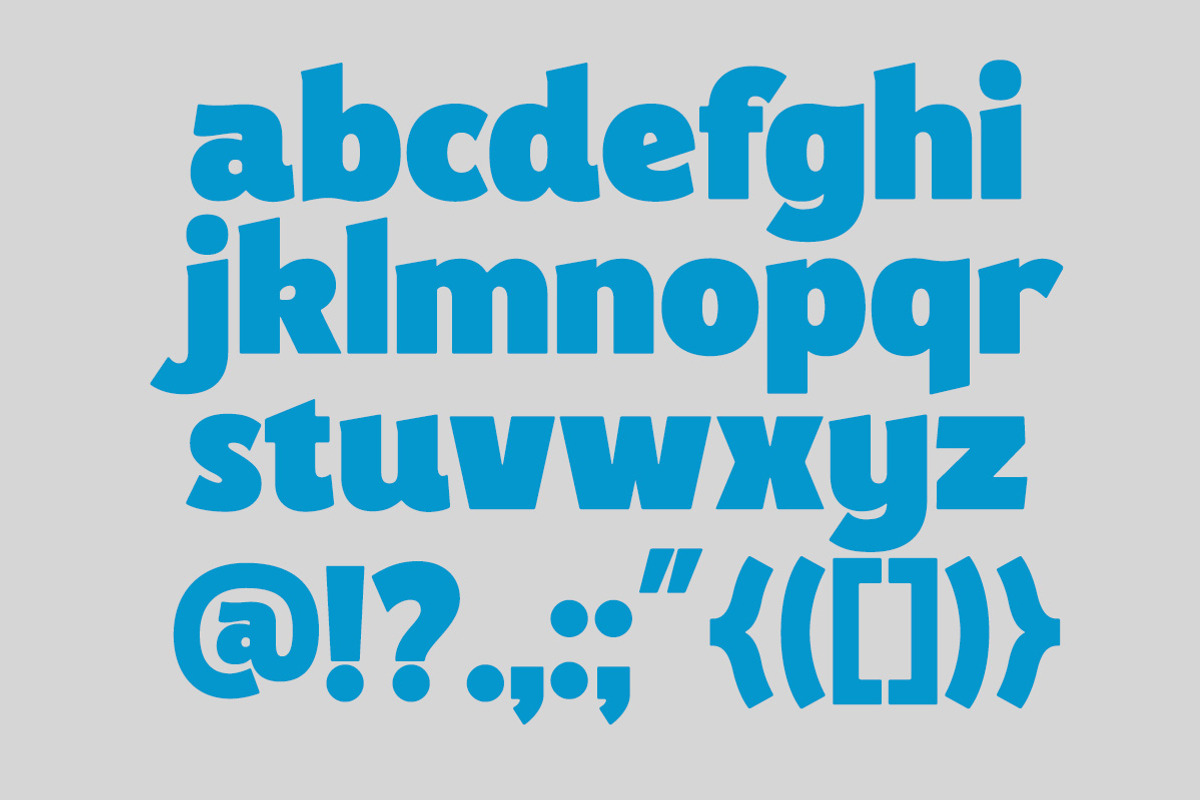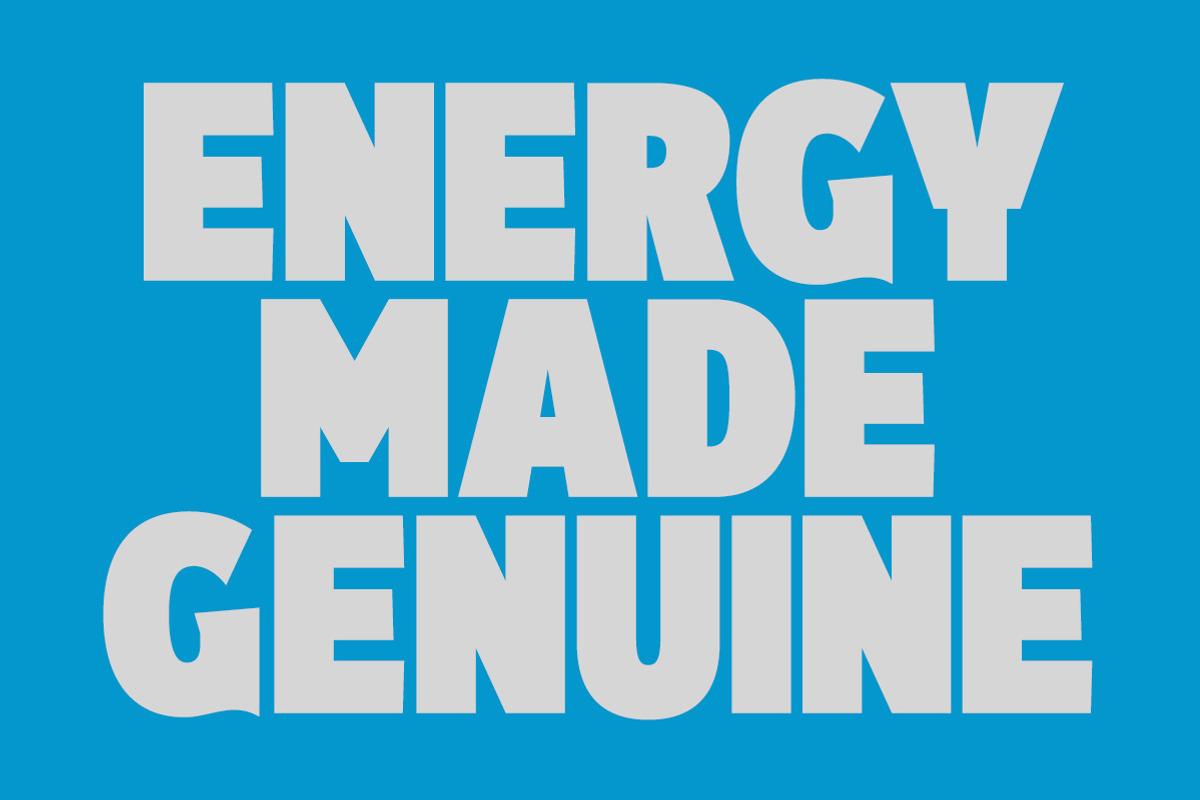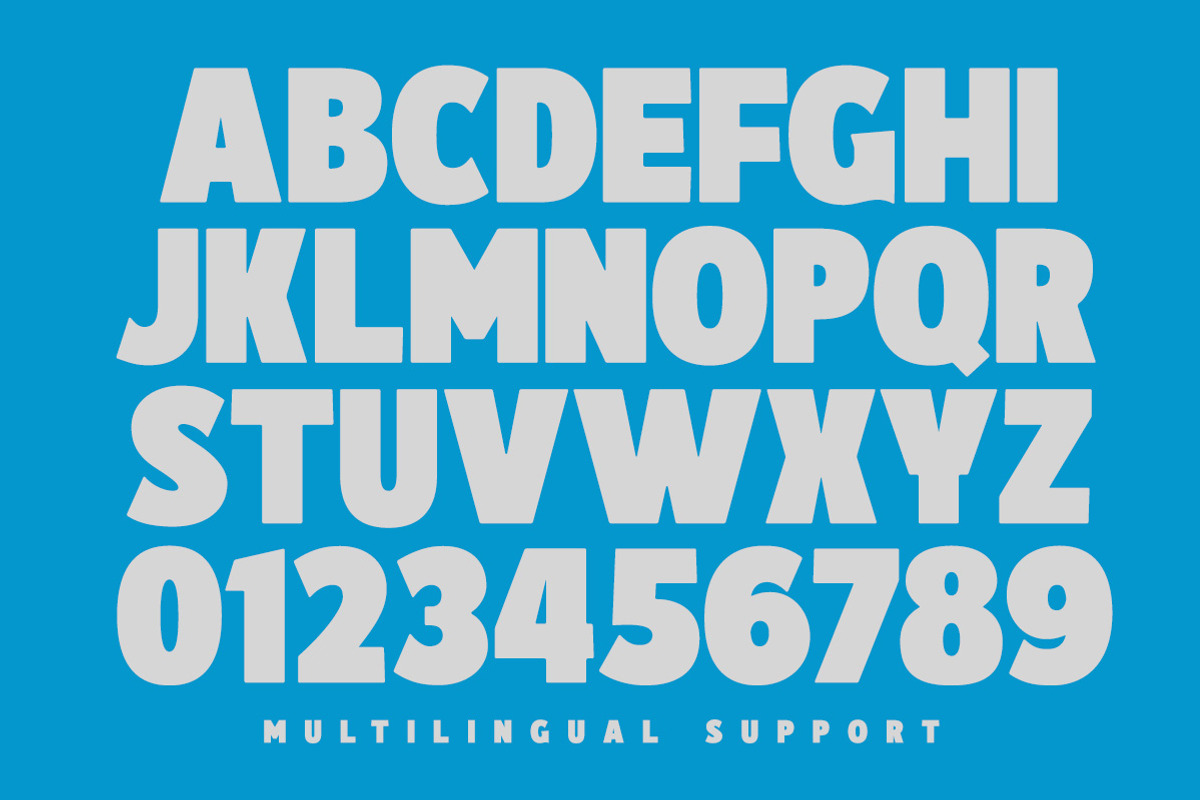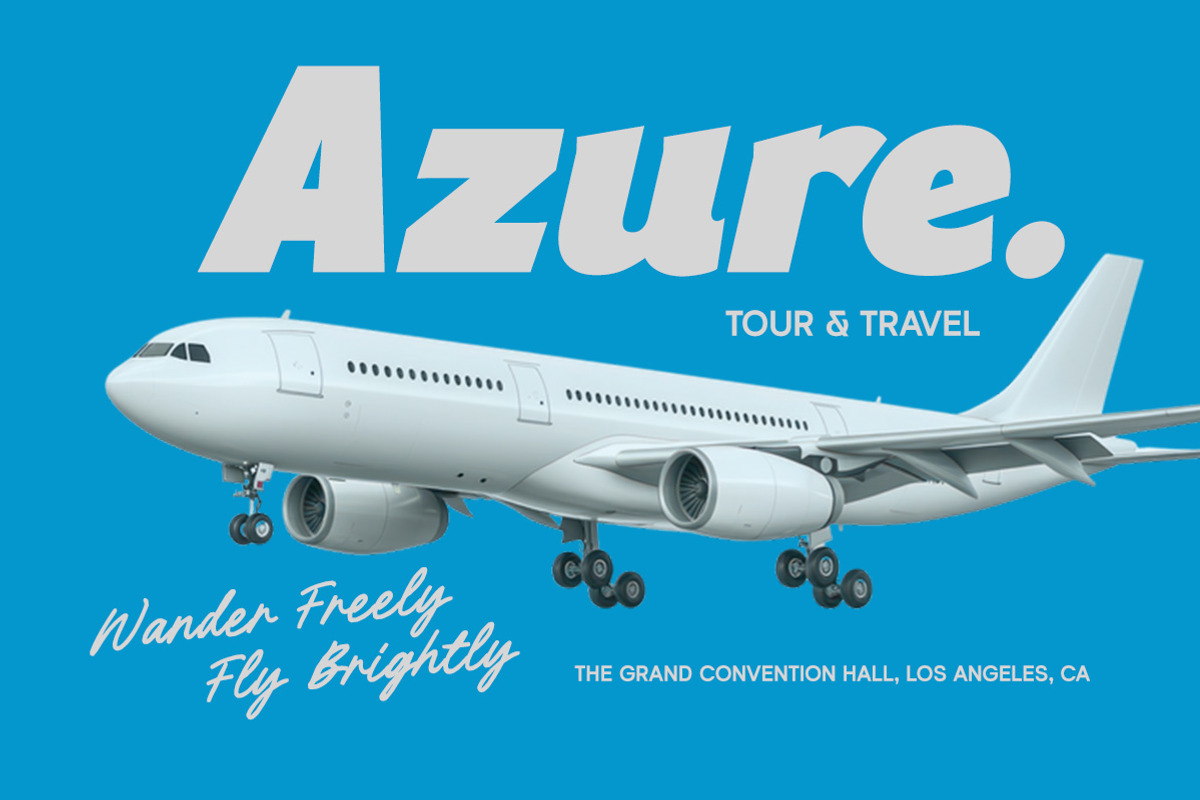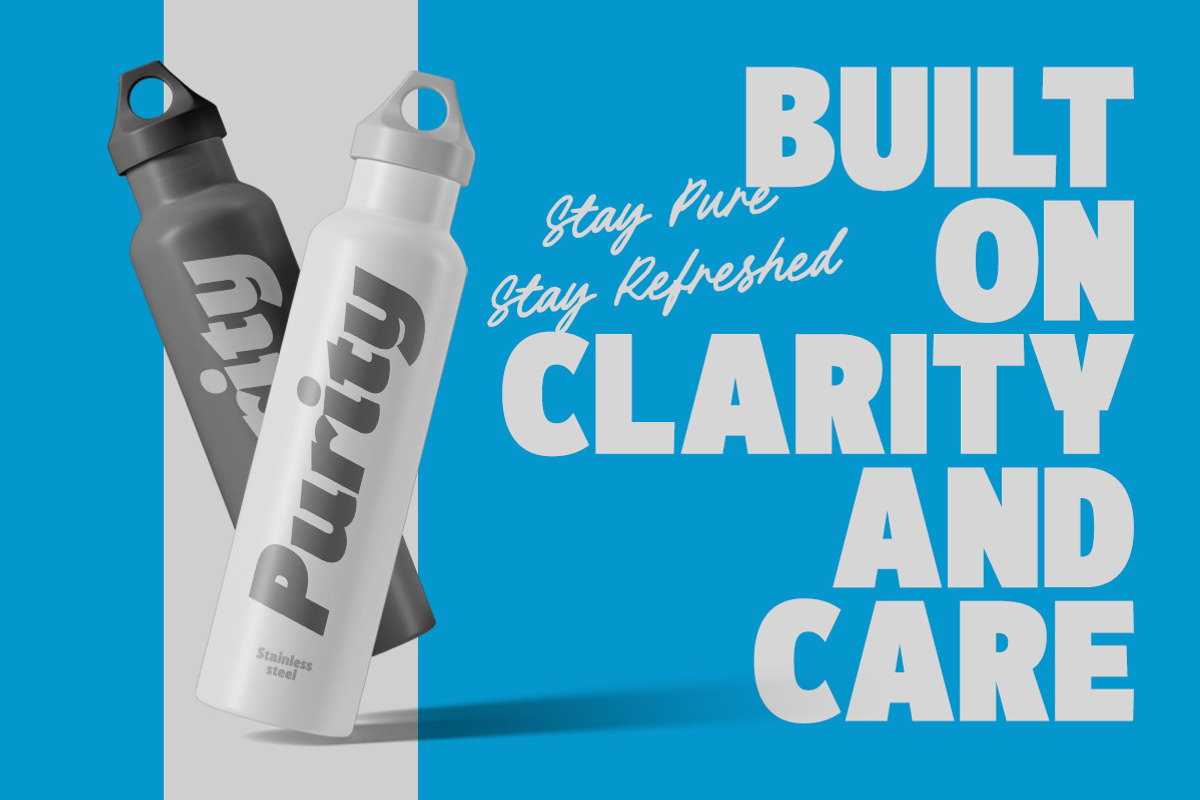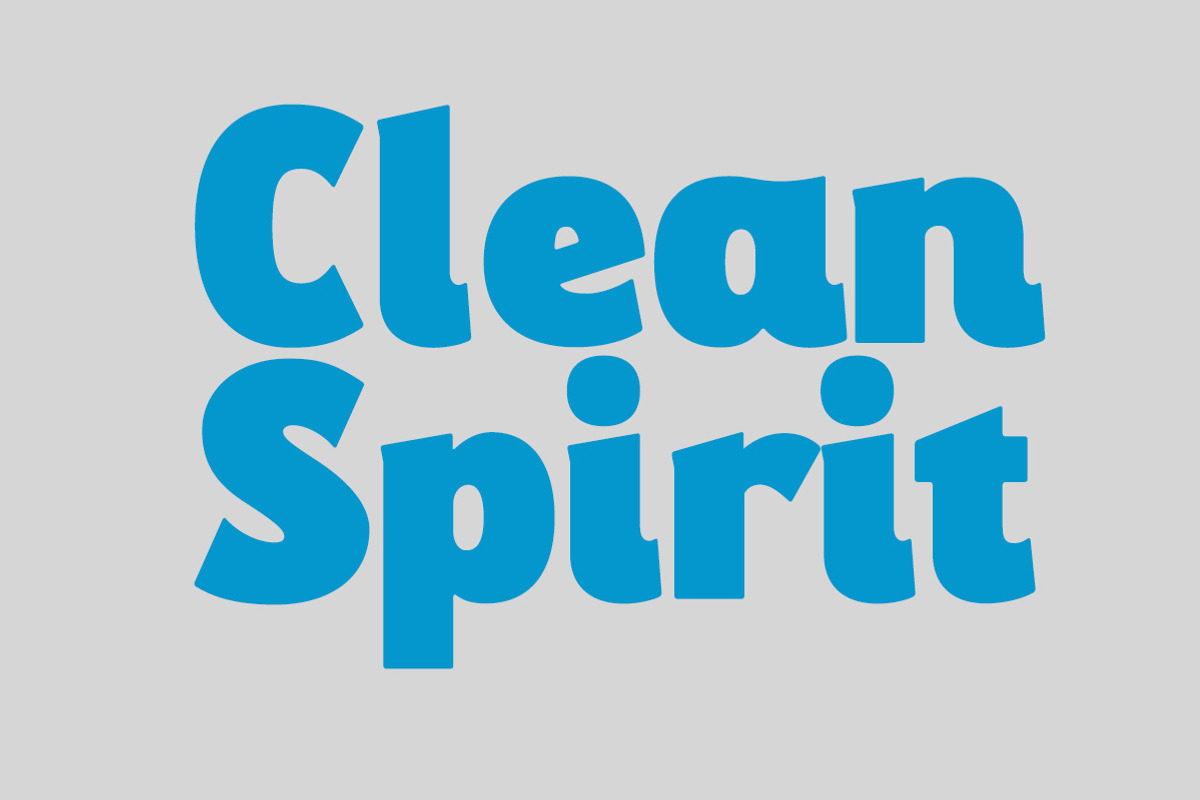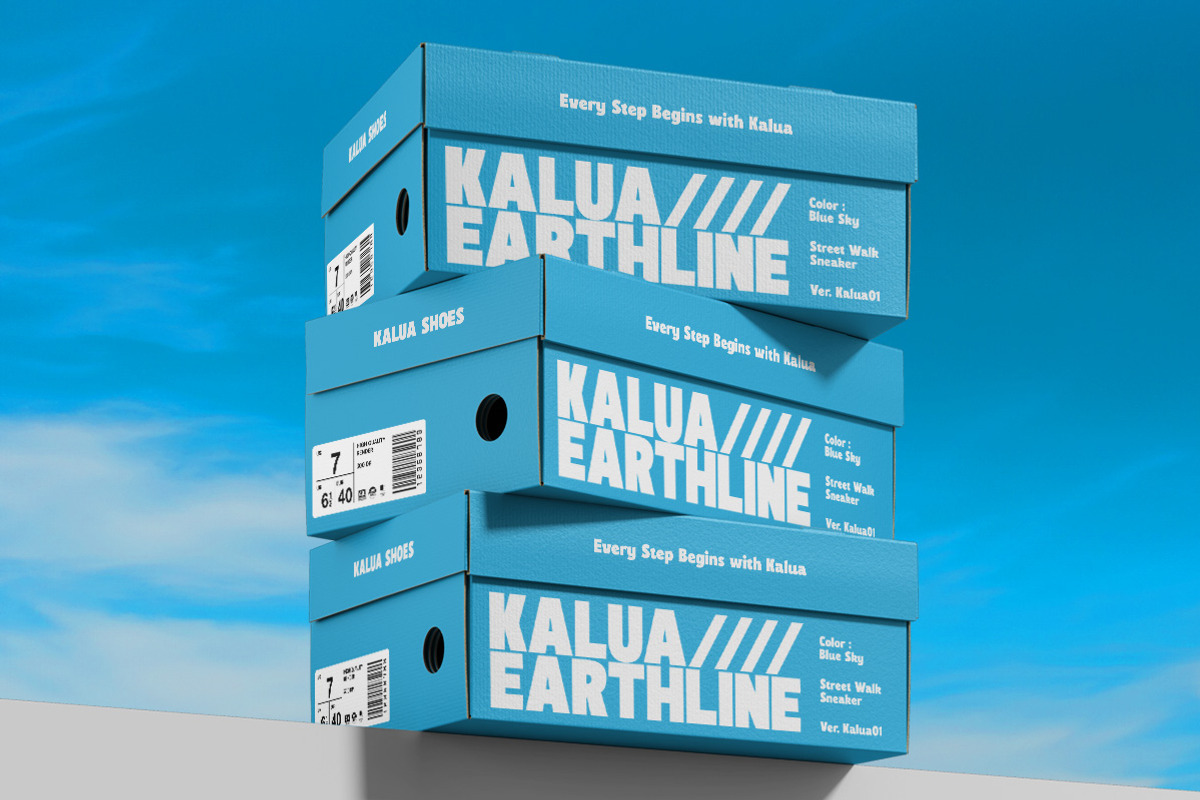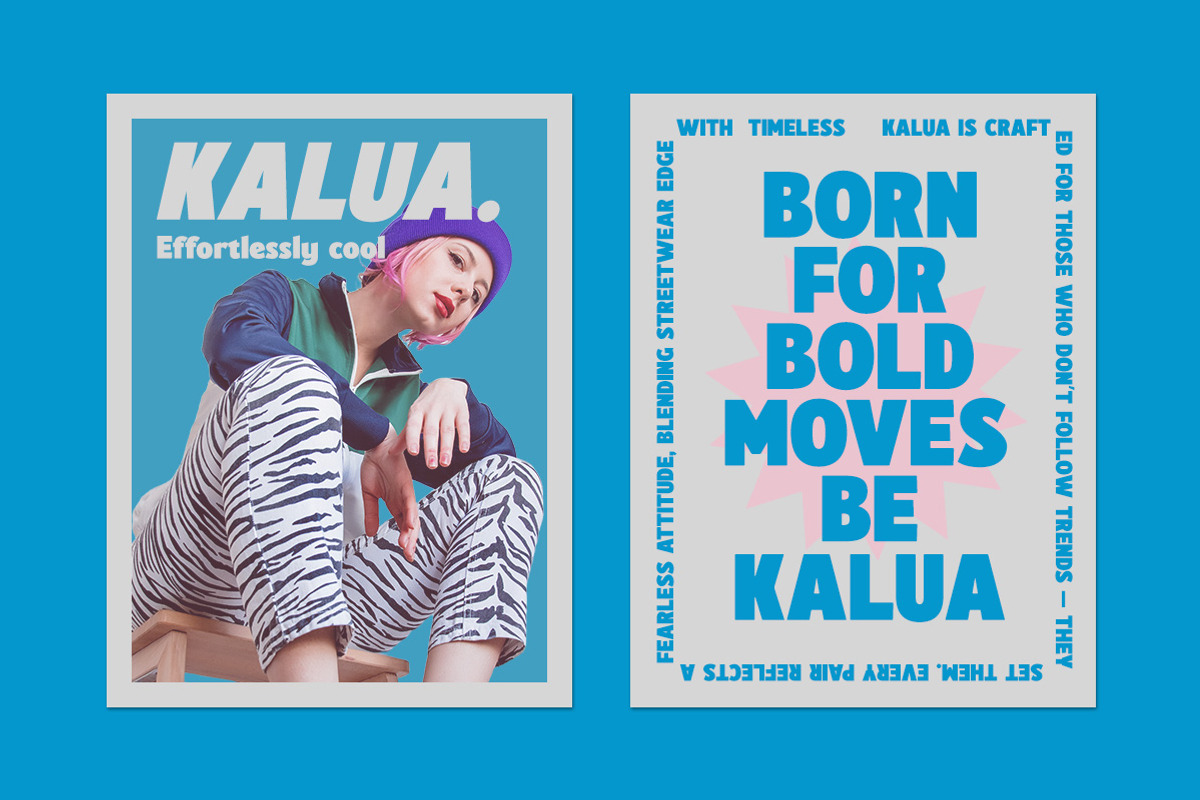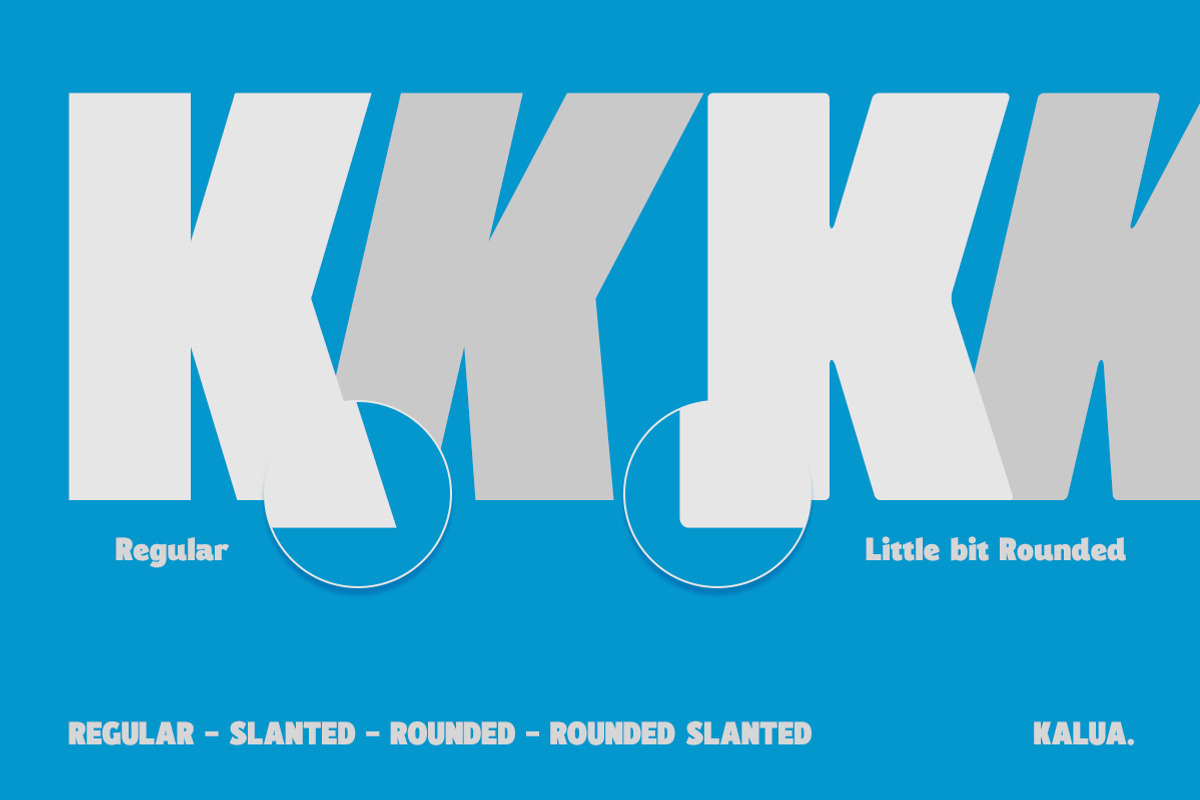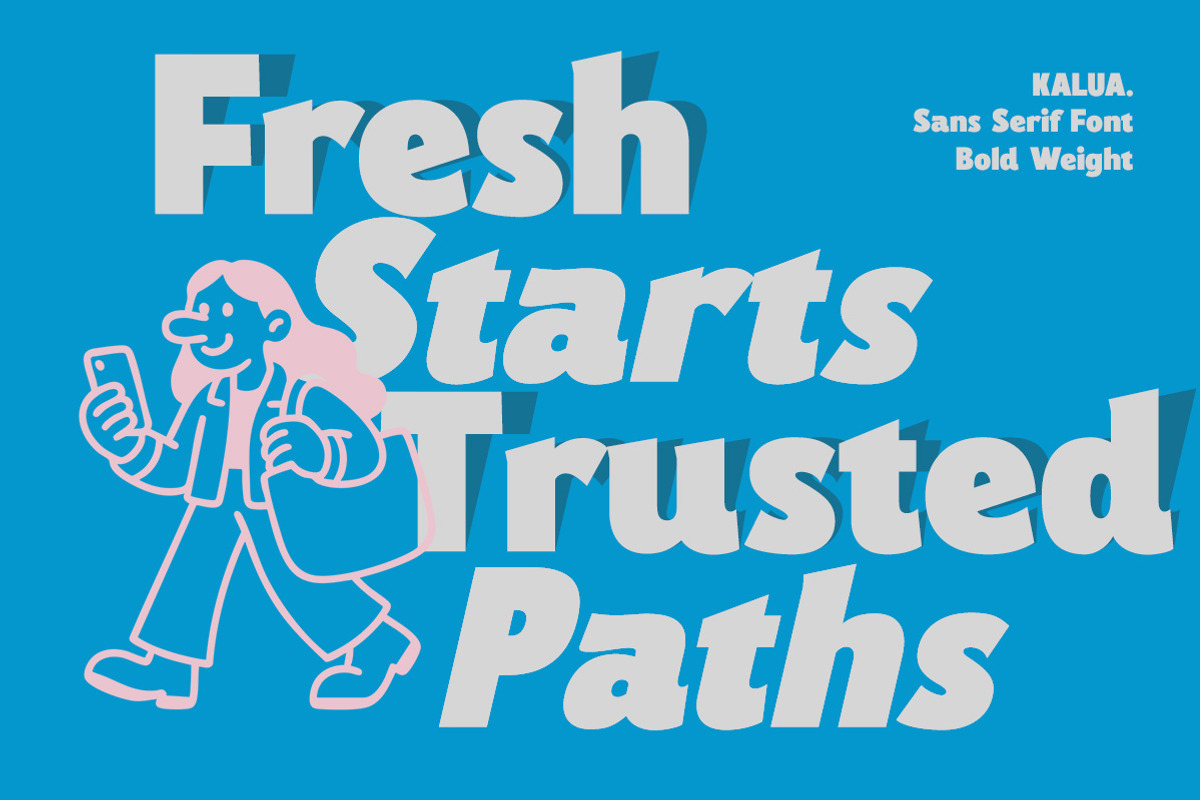
Kalua Bold Sans Serif
Kalua is a bold sans-serif font that radiates modern energy and confident simplicity. With clean curves, strong proportions, and smooth edges, it delivers a playful yet professional look. Perfect for branding, packaging, posters, and digital designs, Kalua stands out with its friendly geometry and versatile usability.